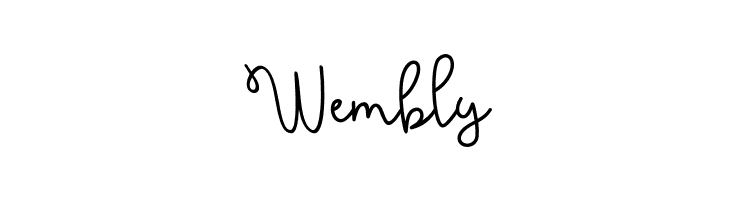
A playful monoline script font with smooth, continuous strokes and a handwritten feel.
A playful, monoline handwritten font with fluid, connected letters.
Playful, decorative script with swirling, festive strokes.